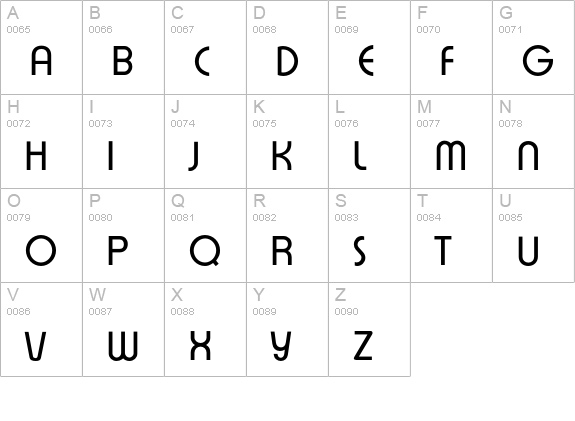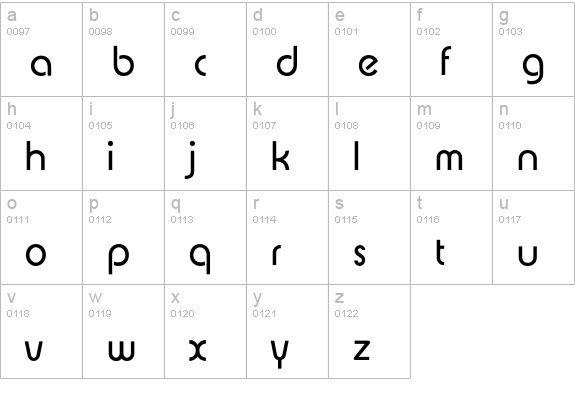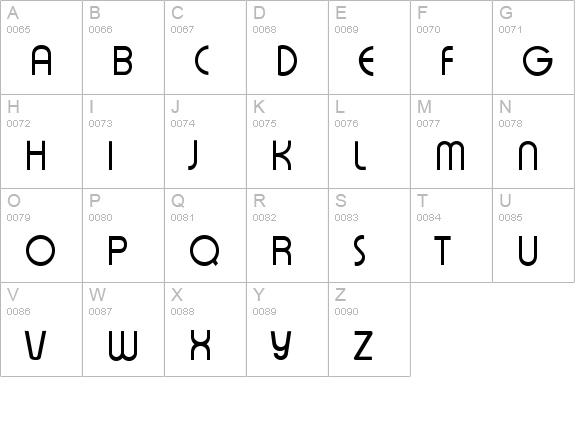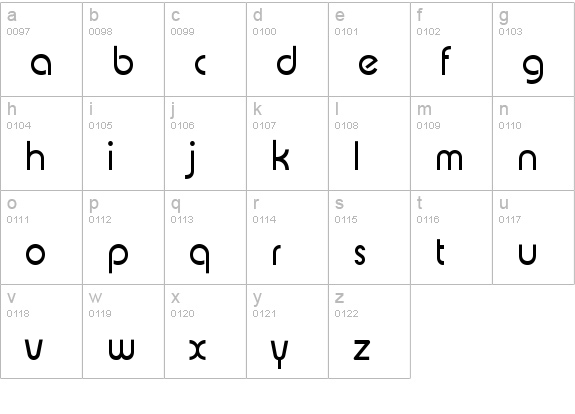
Expressa-Regular Font Details
Expressa-Regular is the standard, neutral variant in the Expressa typeface family \xE2\x80\x94 well suited to general body text, paragraphs, and standard typographic work.
Expressa-Regular is a versatile and modern font that exudes style and sophistication. With its clean lines and elegant curves, this typeface is perfect for a wide range of design projects, from branding and advertising to editorial and web design. The sleek and contemporary look of Expressa-Regular makes it a popular choice for designers looking to add a touch of class to their work. What makes Expressa-Regular even more appealing is that it is available for free download at FontsMarket.com. This means that you can access this stunning font without any cost, making it a valuable addition to your design toolkit. Whether you're working on a professional project or a personal creative endeavor, Expressa-Regular is sure to elevate your designs and make a lasting impression. Download it today and take your design projects to the next level with this exceptional font.